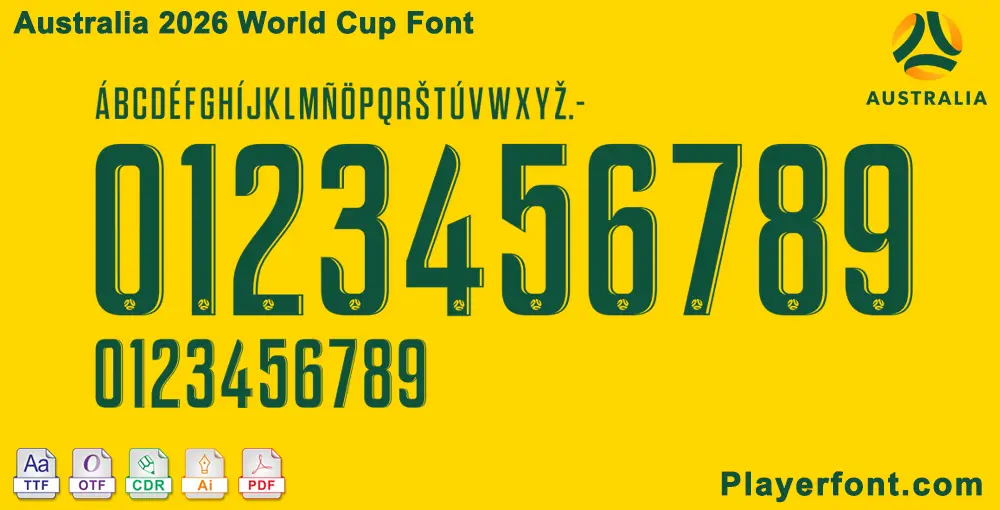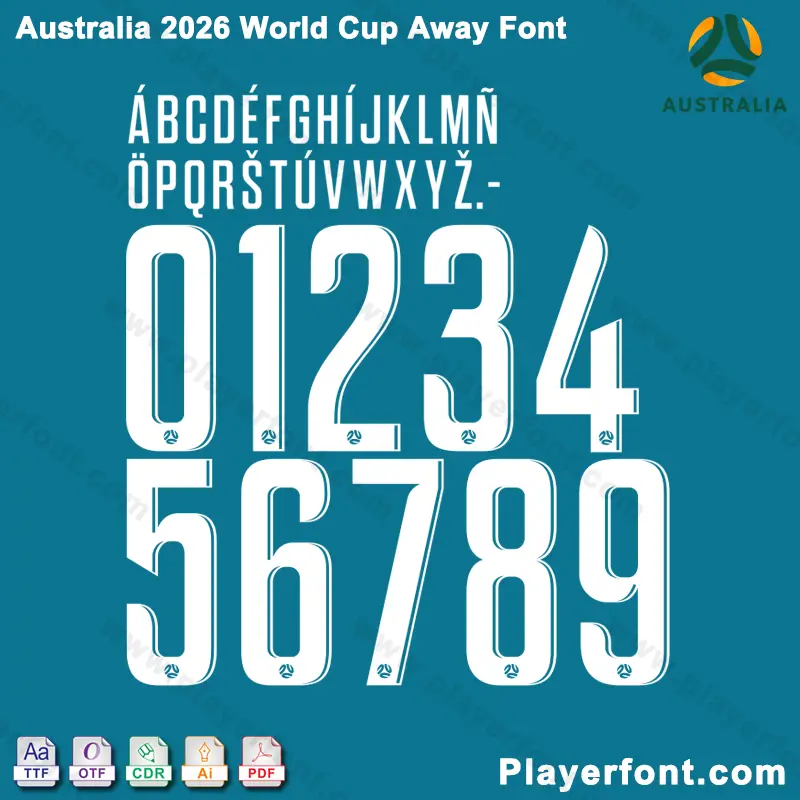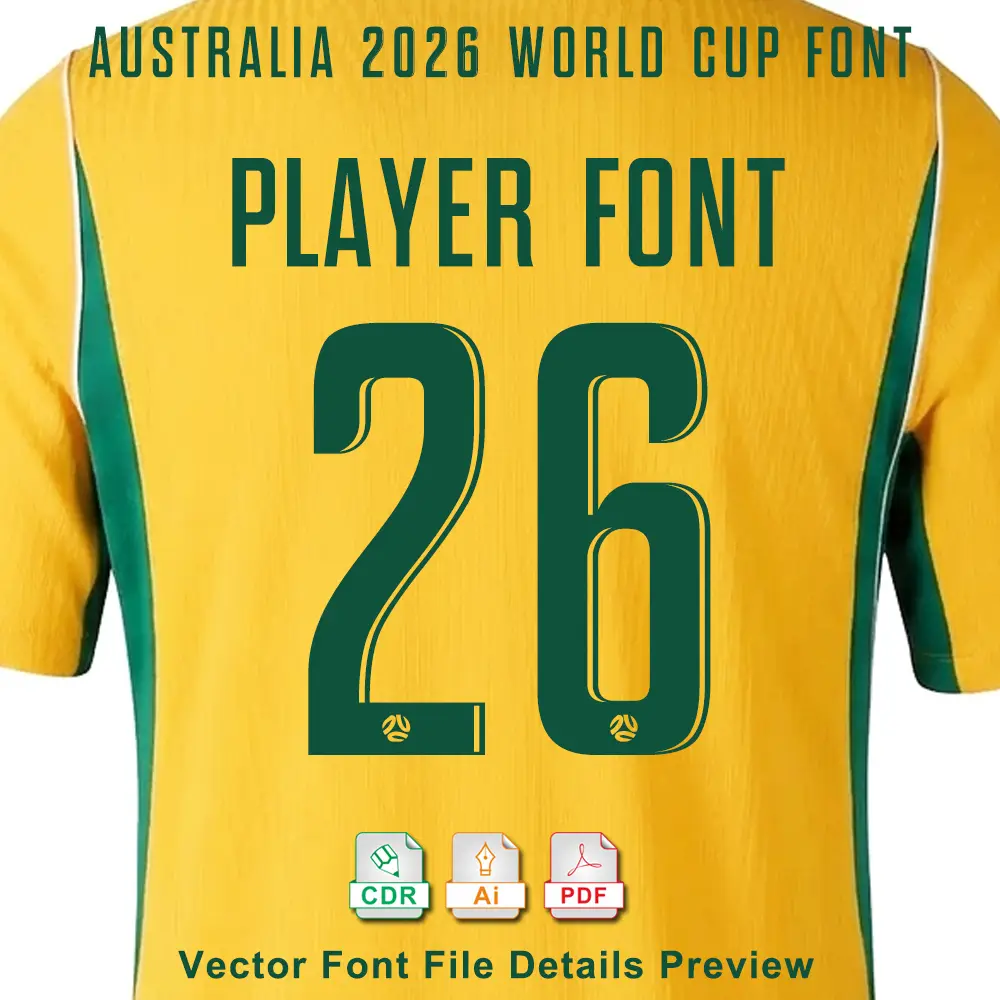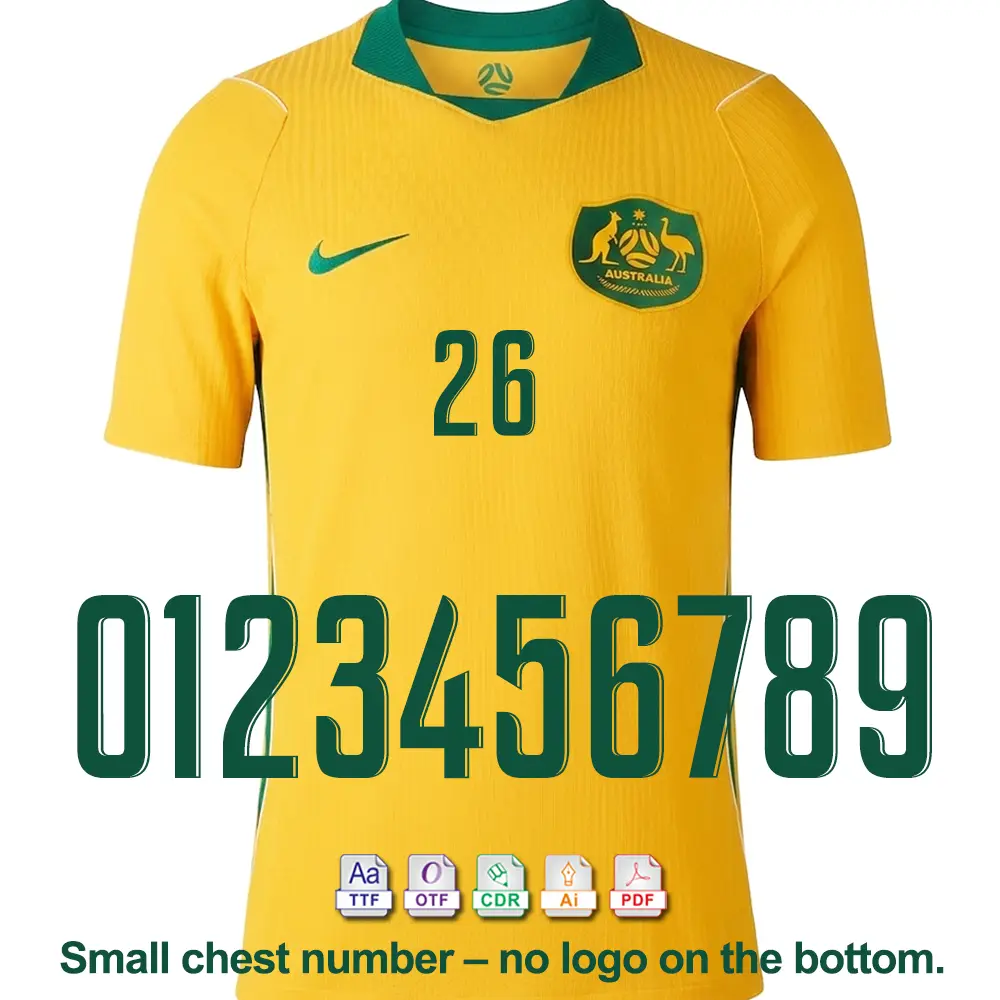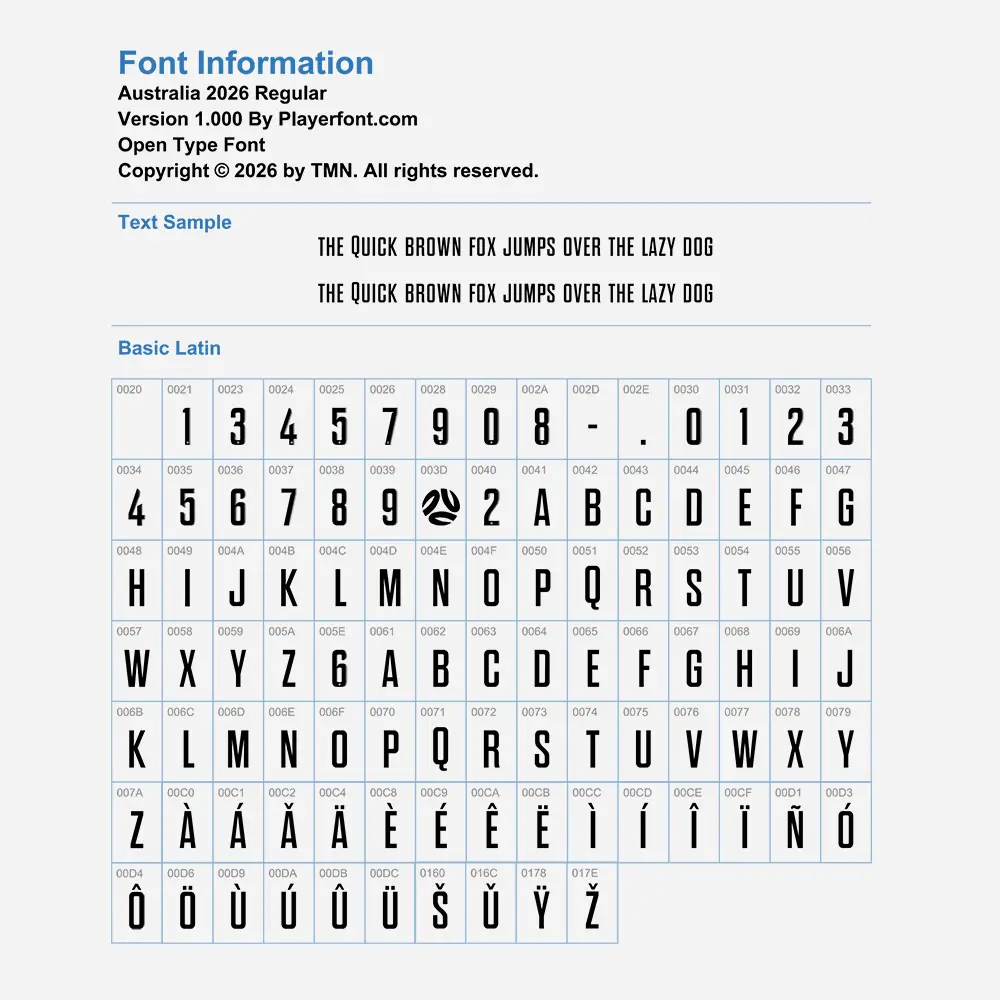
Capture the authentic look of the Australian national team with the Australia 2026 Regular typeface. This font has been meticulously engineered for sports apparel enthusiasts and graphic designers who require precision in every glyph.
Full Character Set: Includes uppercase letters (A-Z) with specific accents (Á, É, Í, Ñ, Ö, etc.) and the complete 0-9 numbering system.
Integrated Graphics: The numbering includes the official-style federation logo at the base for an authentic kit appearance.